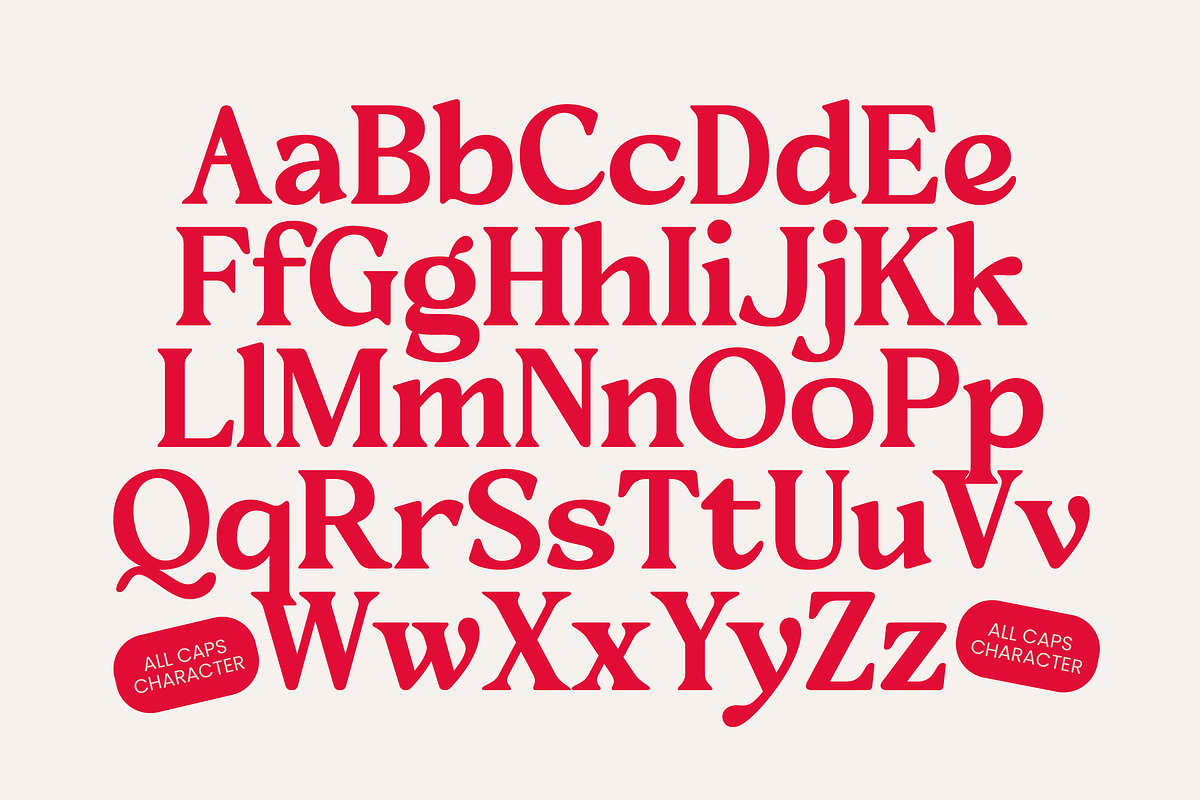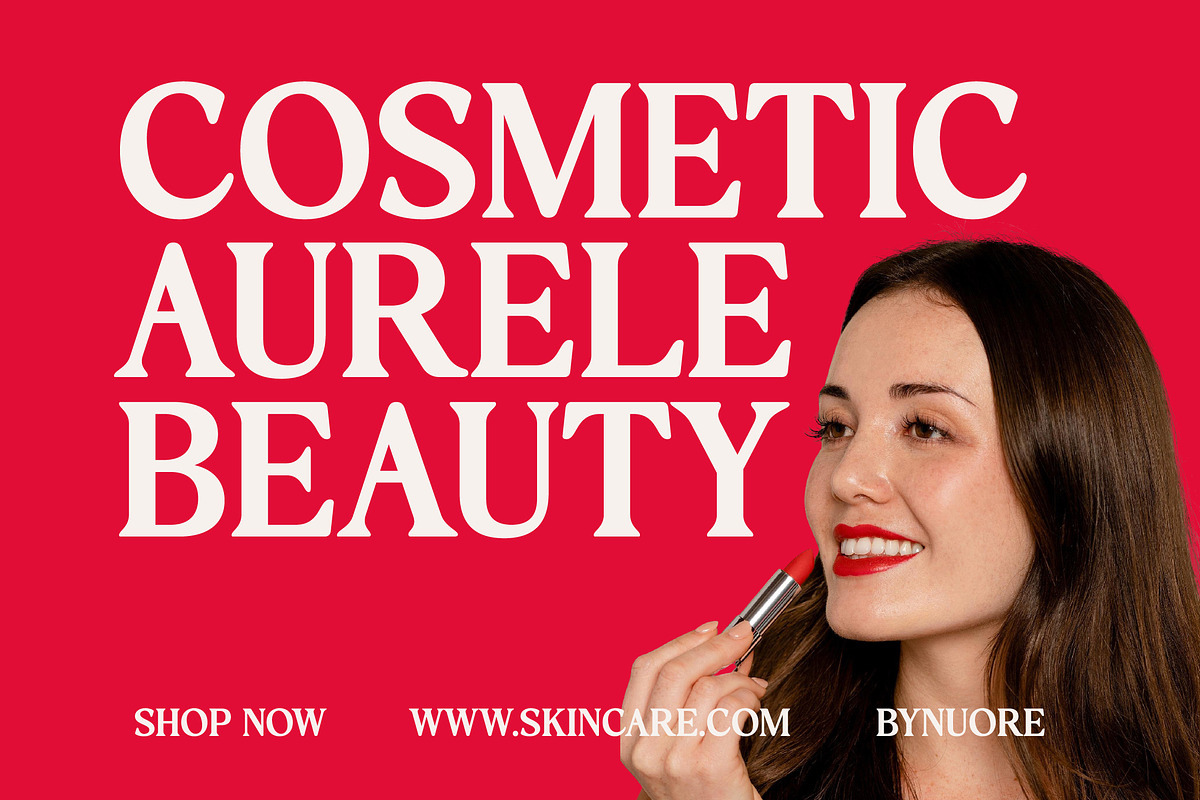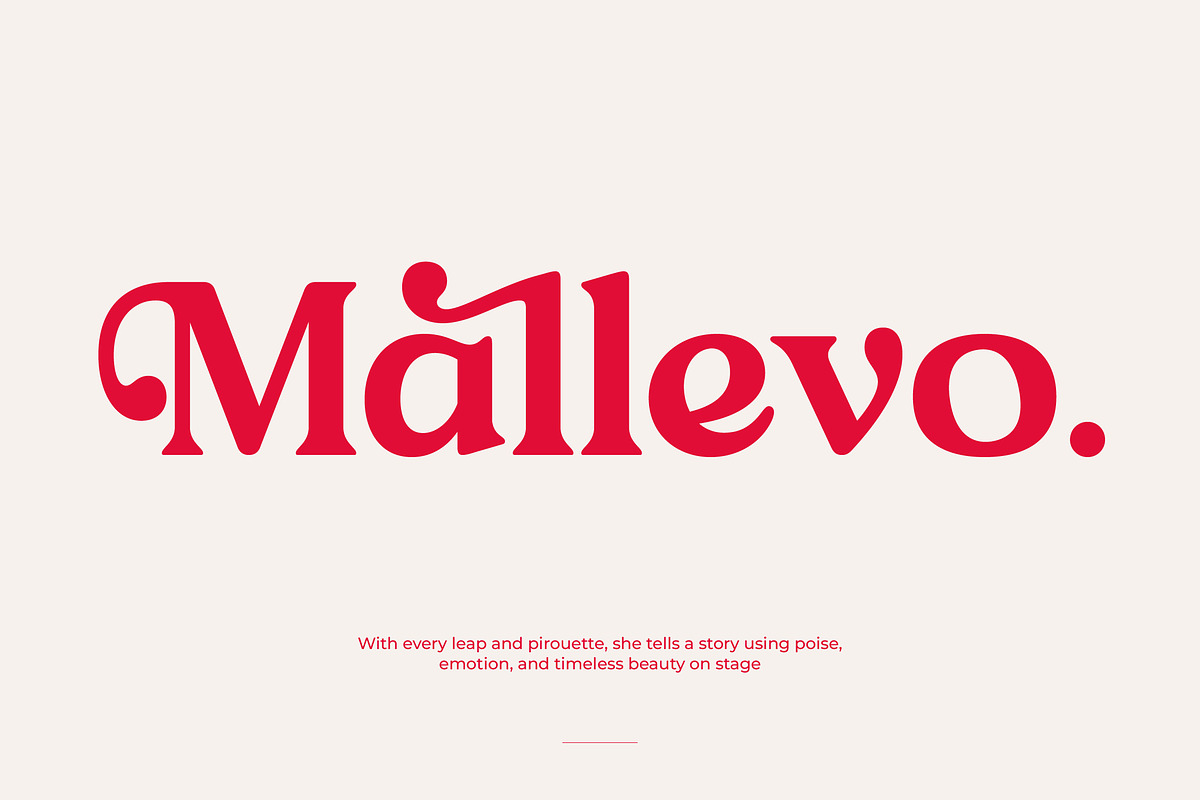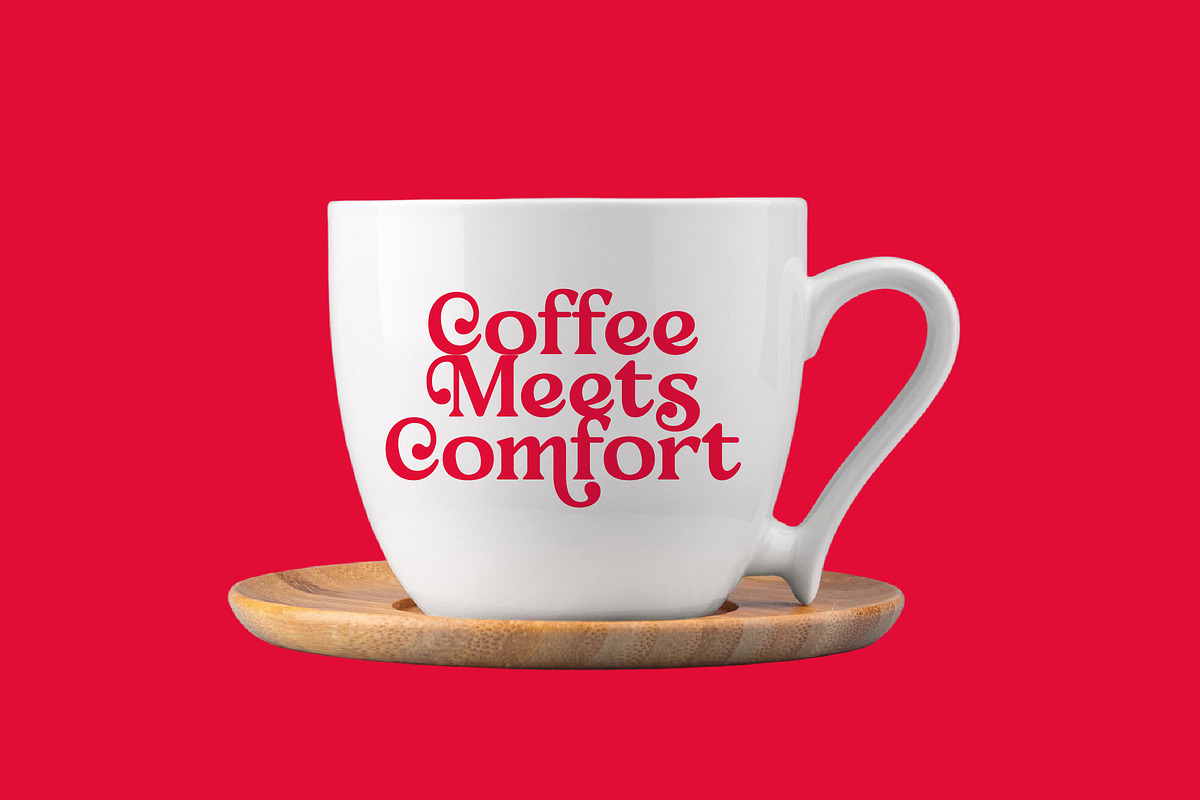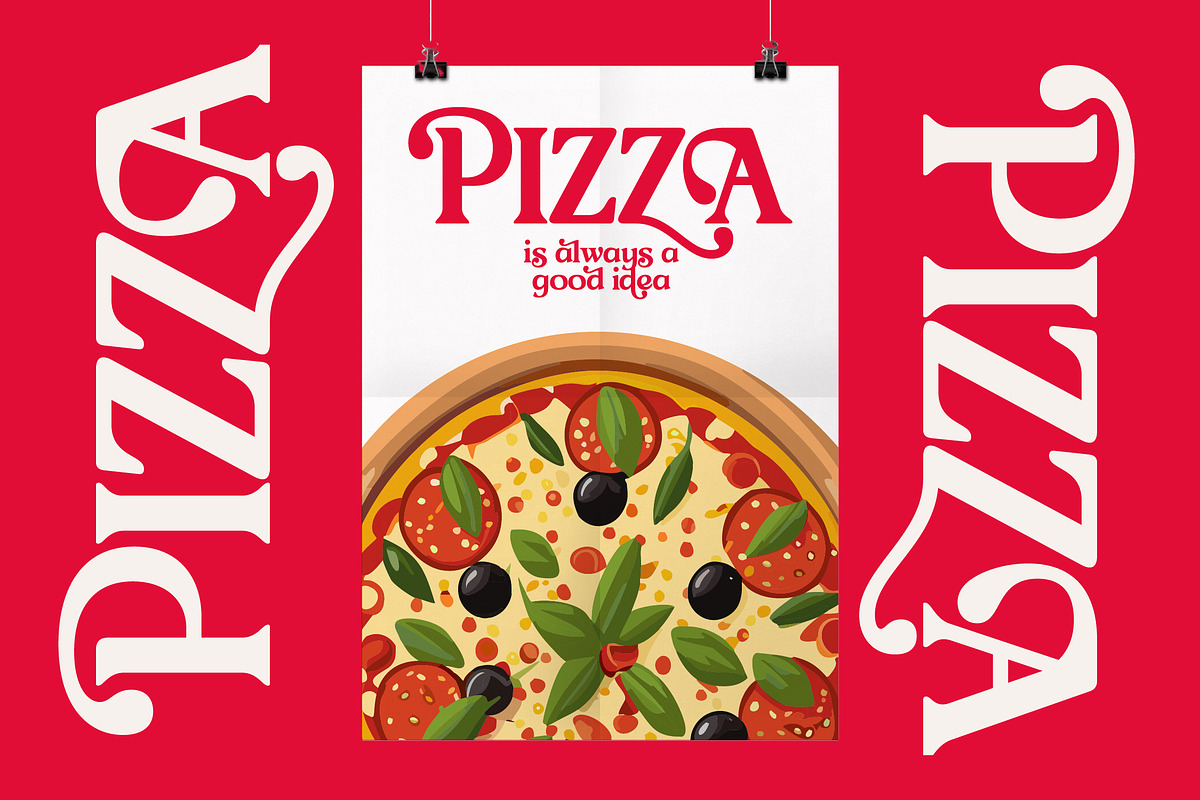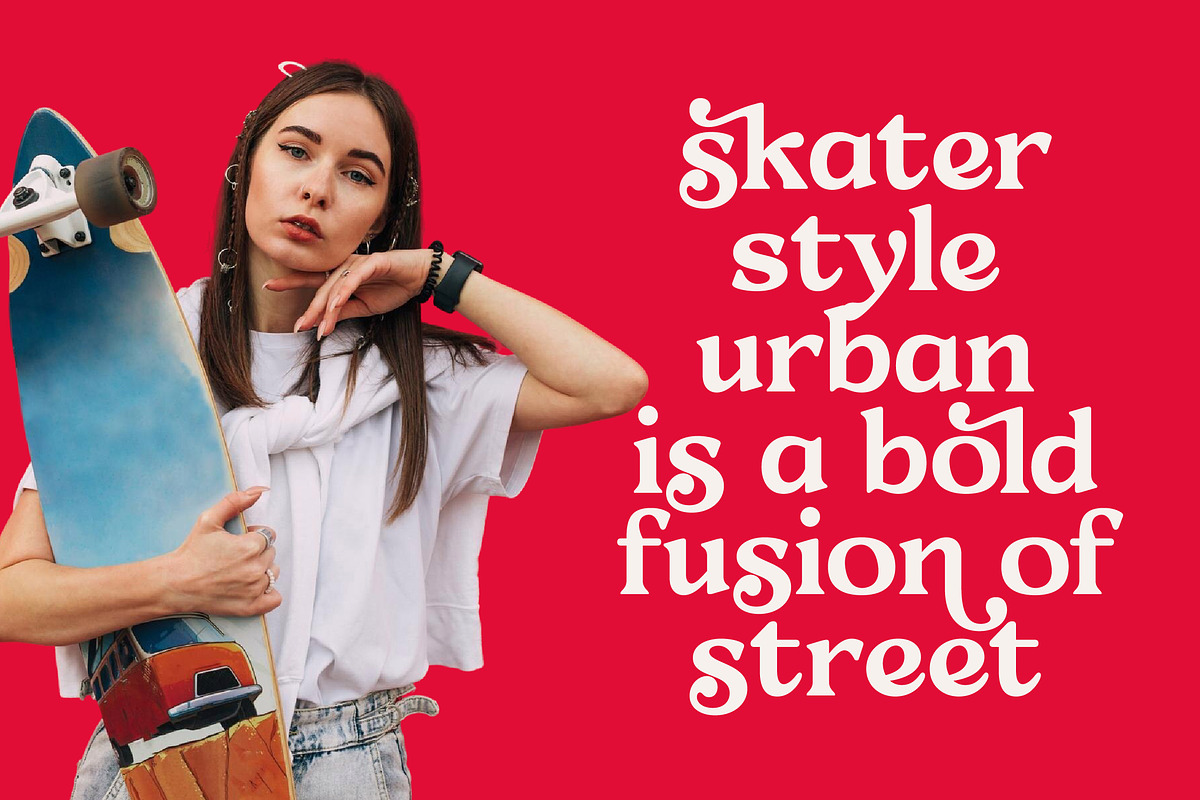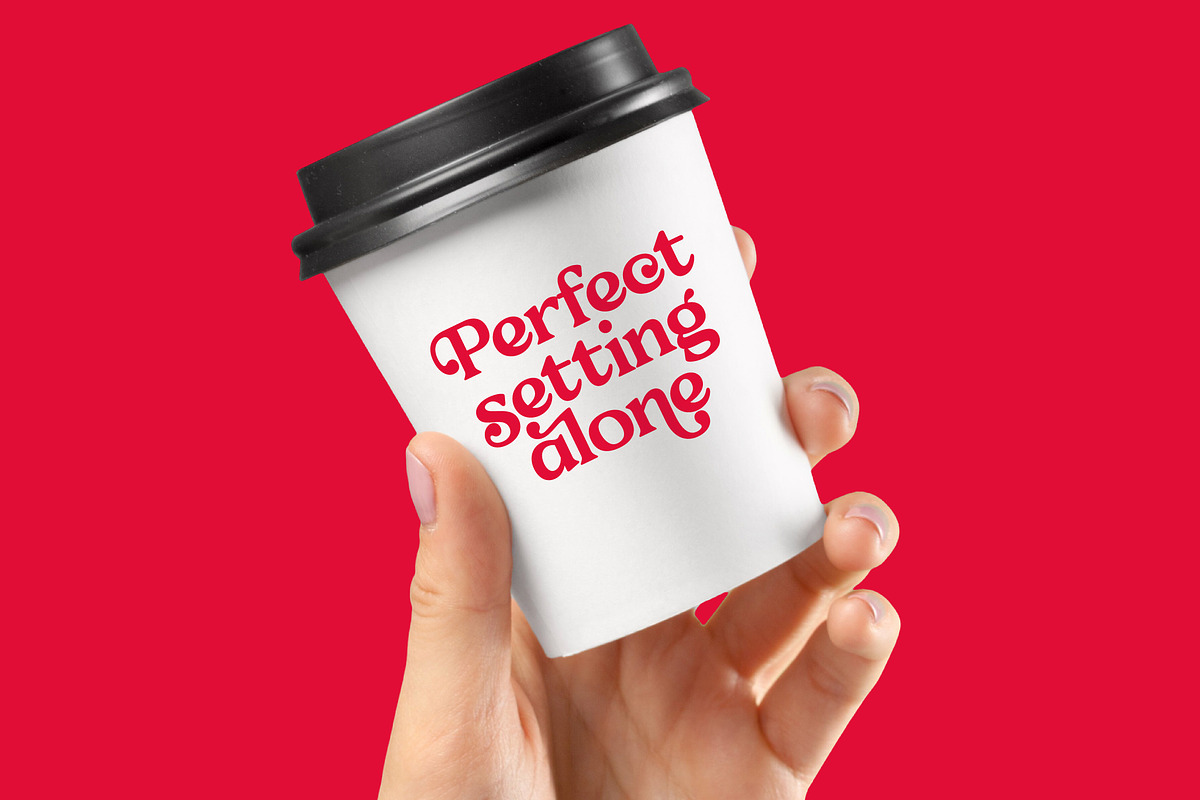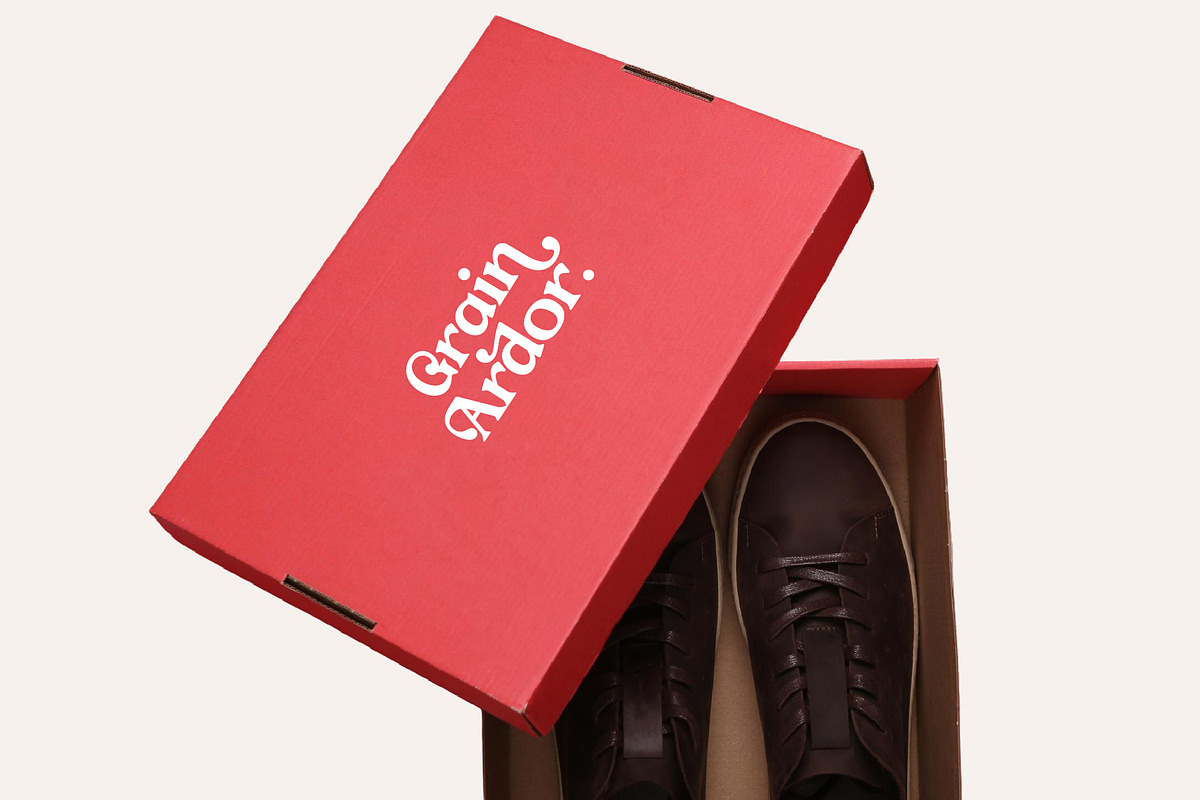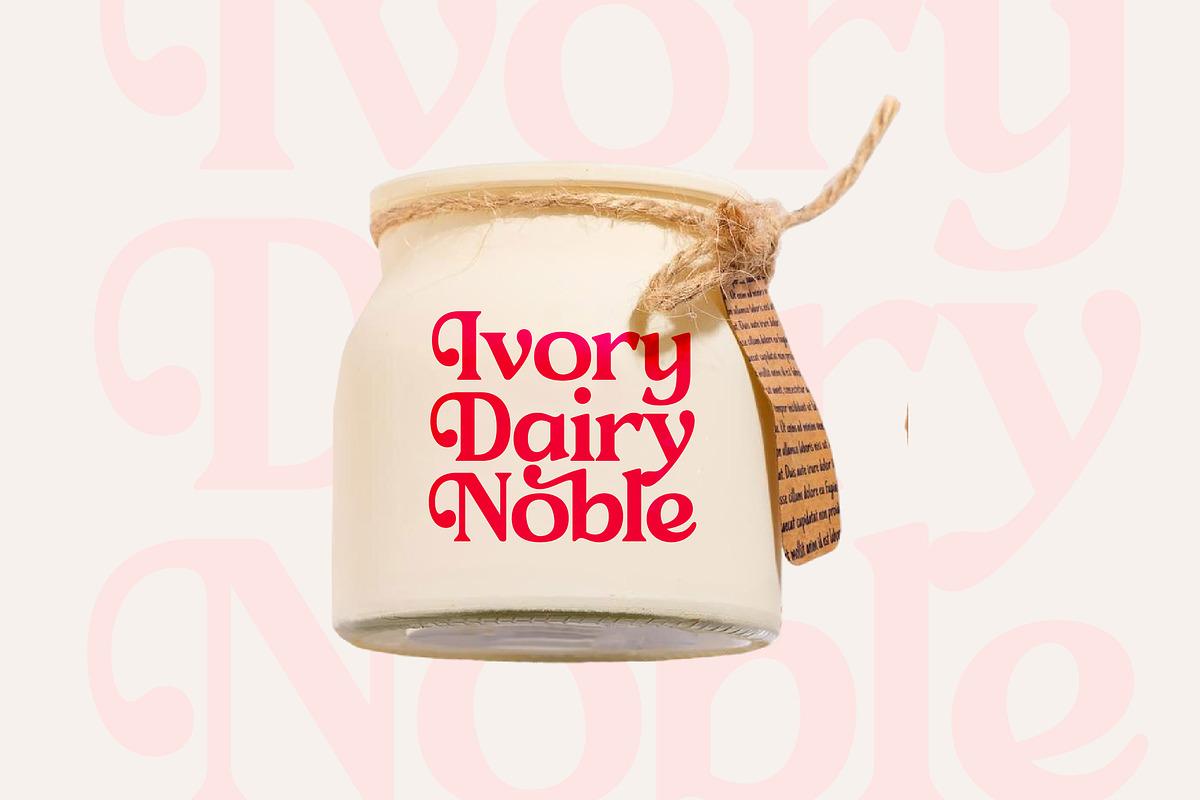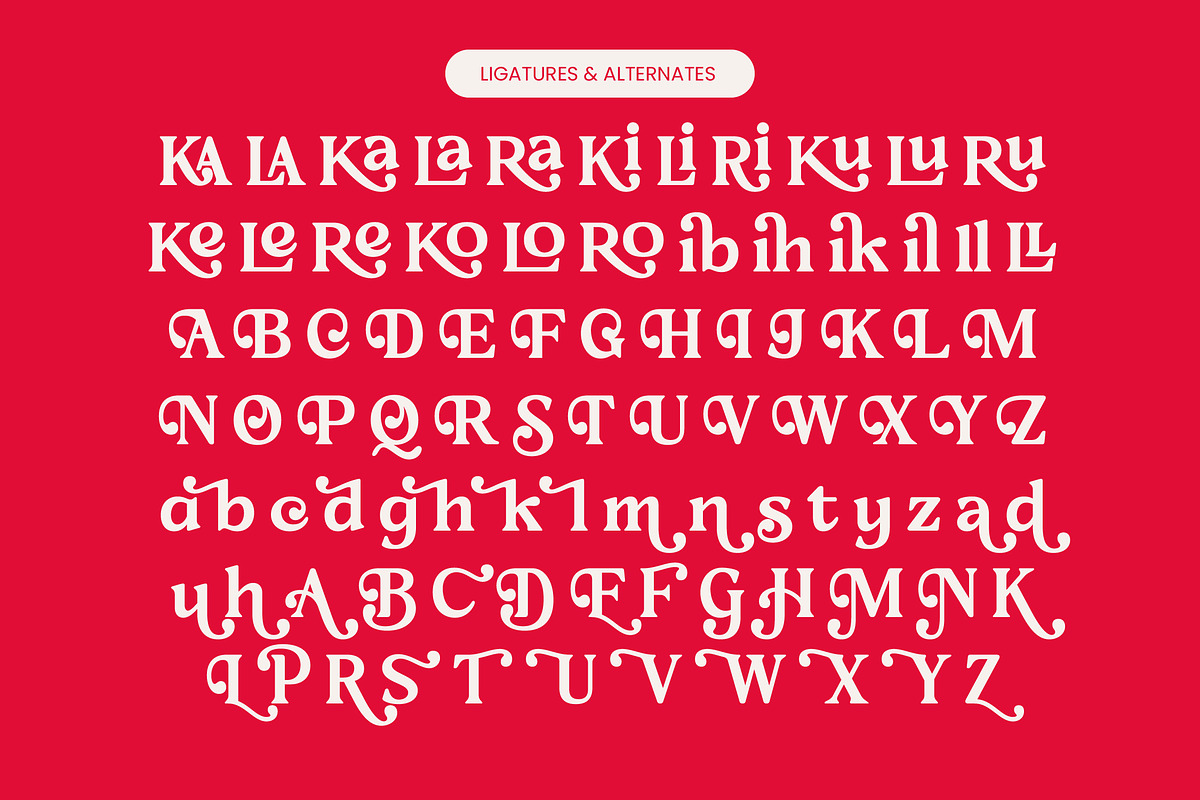
Loyale Rosell Modern Serif Font
Loyale Rosell is a masterclass in sophisticated design, blending timeless elegance with a contemporary edge. This typeface captures the essence of high-end aesthetics, making it an essential addition to any creative's toolkit for achieving a polished look.
Inspired by the graceful curves of vintage floral motifs and the structured discipline of classic Roman lettering, this font evokes a sense of romantic nostalgia. It mirrors the play of light and shadow found in a sun-drenched botanical garden, bringing an organic yet refined atmosphere to every digital or print canvas.
As a modern serif display, this typeface commands attention with its luxury typography and high-contrast serif strokes. It is a quintessential editorial font designed for maximum branding impact, offering a unique balance between bold weight and delicate, swirling details that define premium aesthetics.
Perfectly aligned with the modern serif trend, this typeface meets the growing demand for editorial display fonts that feel both custom and accessible. It taps into the rise of character-driven typography, where individual letters become the centerpiece of a brand's visual identity and storytelling.
From high-end logo design and comprehensive branding systems to immersive editorial layouts, its versatility is unmatched across various industries. It is the ideal choice for luxury packaging, romantic wedding stationery, and cutting-edge fashion lookbooks that require a touch of class.
The package is rich with creative possibilities, including 27 unique ligatures and 66 decorative alternates that allow for custom character combinations. With a full set of swashes, extensive multilingual support, and a wide array of international characters, it ensures global compatibility for any professional project.
- Ligature 27 Alternate 66